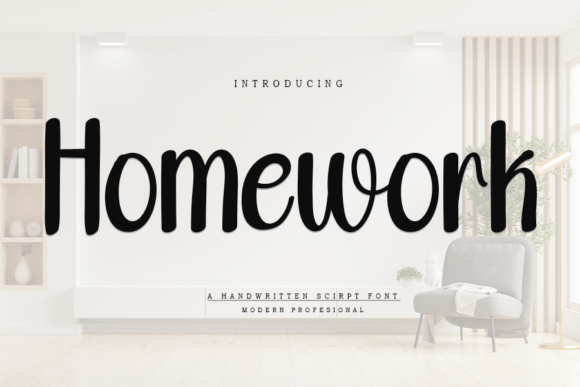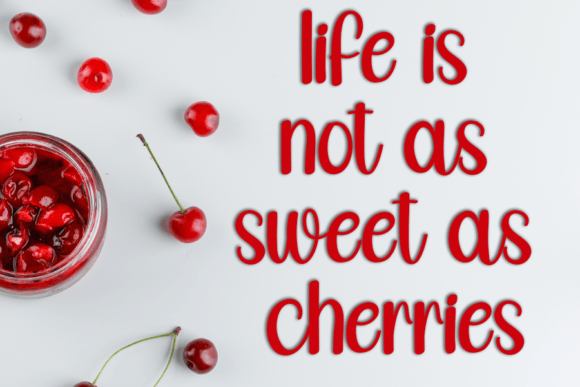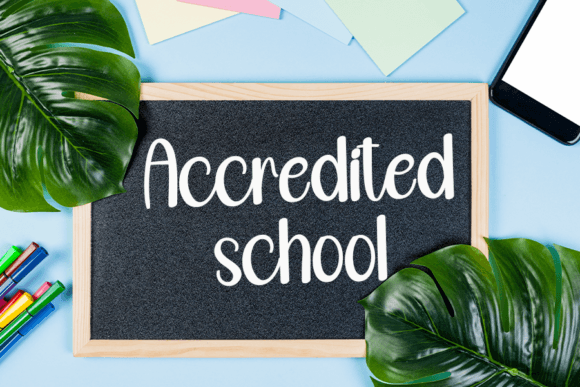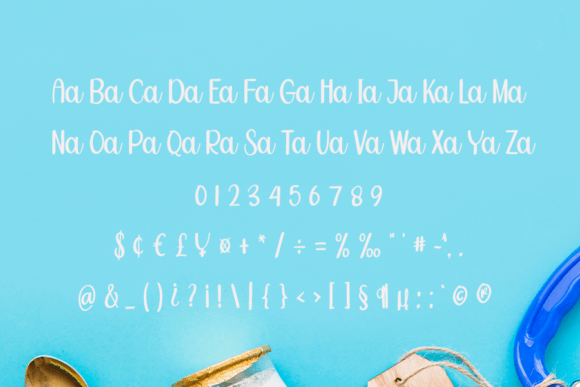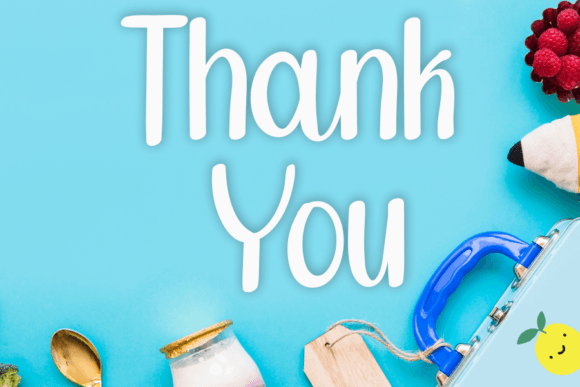
Homework Font
Add a Personal Touch with Homework Font
Homework Font is a stylish and elegant handwritten typeface crafted to add warmth and personality to your designs. Whether you’re designing a heartfelt wedding invitation or a standout logo, this font brings a modern handwritten look that’s both clean and expressive.
Perfect for Multiple Design Needs
Thanks to its contemporary letterforms, Homework Font is suitable for a wide variety of projects. You can confidently use it in:
• Wall art and poster designs
• Product packaging and label branding
• Wedding invitations and stationery
• Logos and social media posts
• Photography watermarks and blog headers
Its versatility makes it an essential addition to your creative toolbox.
Easy to Use and Versatile
Expressive Handwritten Style
This font combines the charm of handwriting with a polished appearance. The natural curves and slight variations in each letterform give your designs a human touch, perfect for brands and creators who want to connect emotionally with their audience.
Designed for Professional Results
Despite its playful edge, Homework Font maintains a level of professionalism that works well for both formal and casual designs. Whether you’re designing a branding kit for a boutique or a label for artisan goods, the font adapts to your tone with elegance.